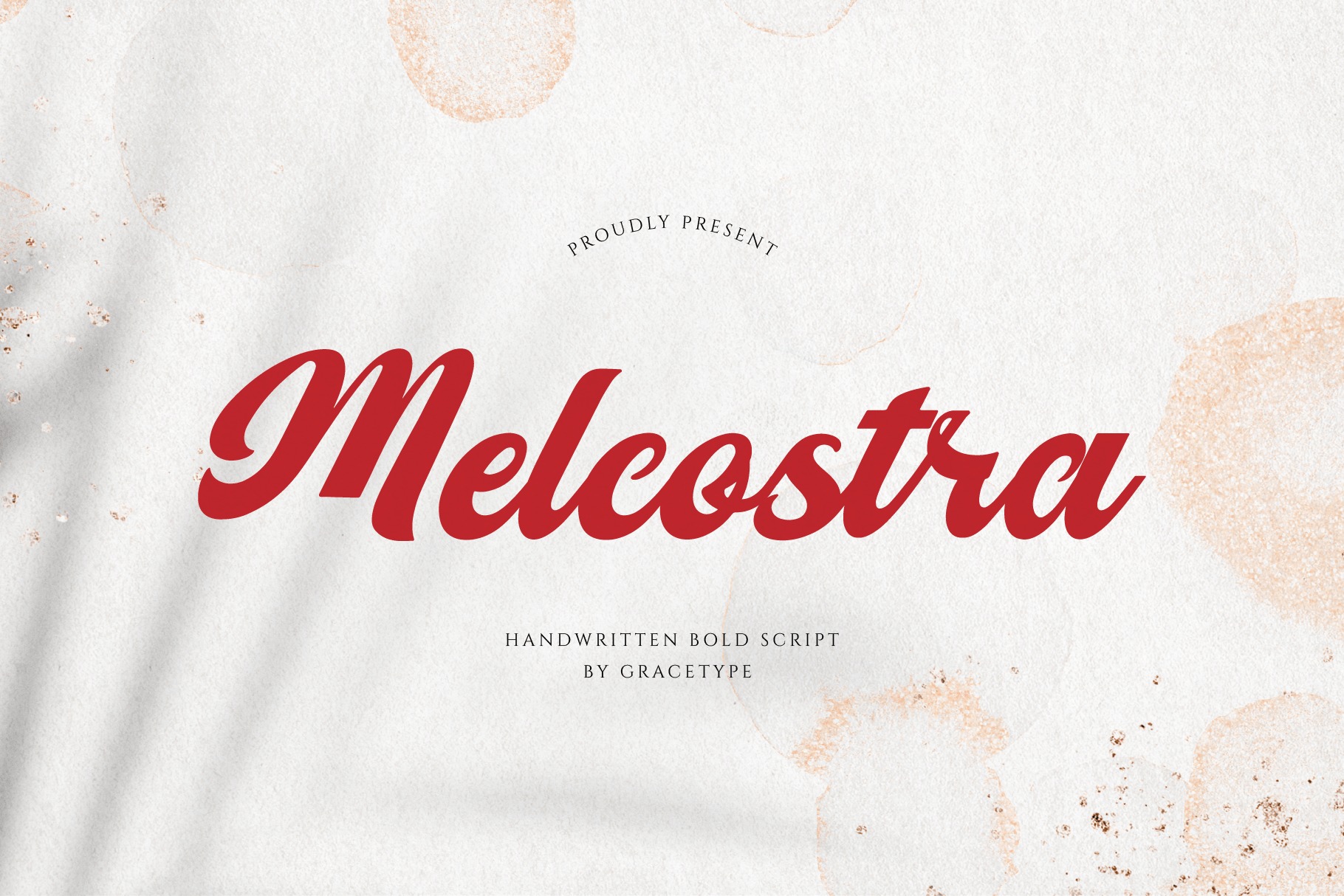
Melcostra – Bold Script Font
Melcostra – Bold Script Font is a clean and thoughtfully built typeface that works seamlessly for both professional branding and everyday creative uses. Melcostra | Handwritten Bold Script, from Gracetypestudio, suitable for any projects such as: logos, branding projects, homeware designs, product packaging, mugs, quotes, posters, shopping bags, t-shirts, book covers, name card, invitation cards, greeting cards, label, photography, watermark, special events, and all your other lovely projects that need a Script taste.
Alternate and Ligature
Fonts include multilingual support